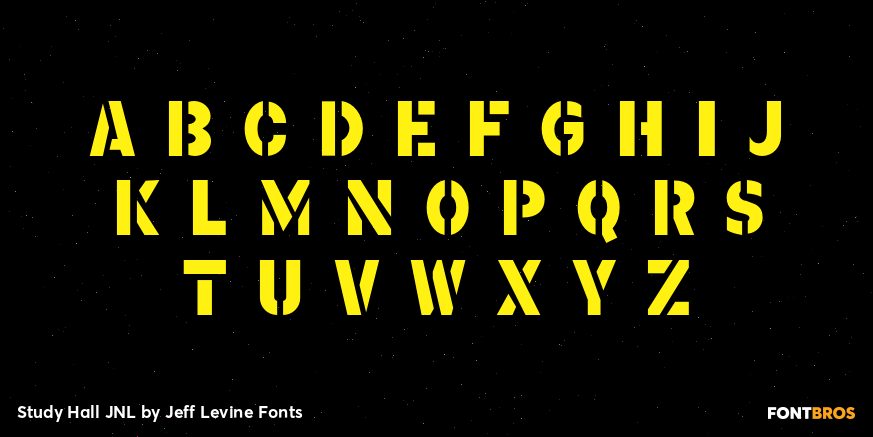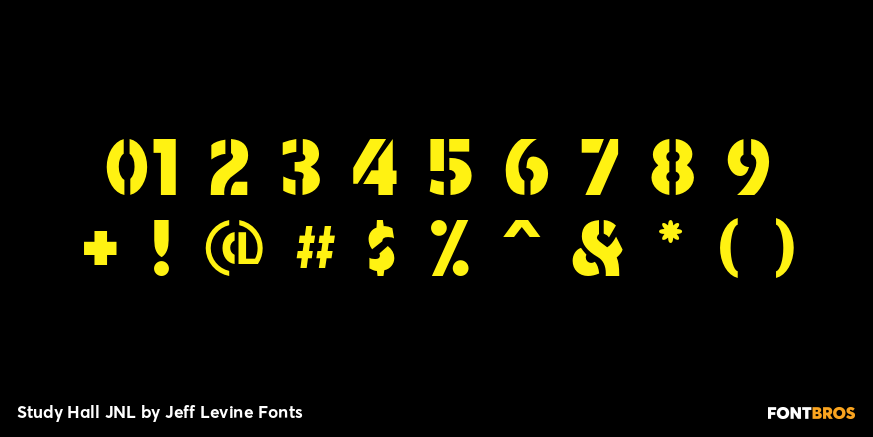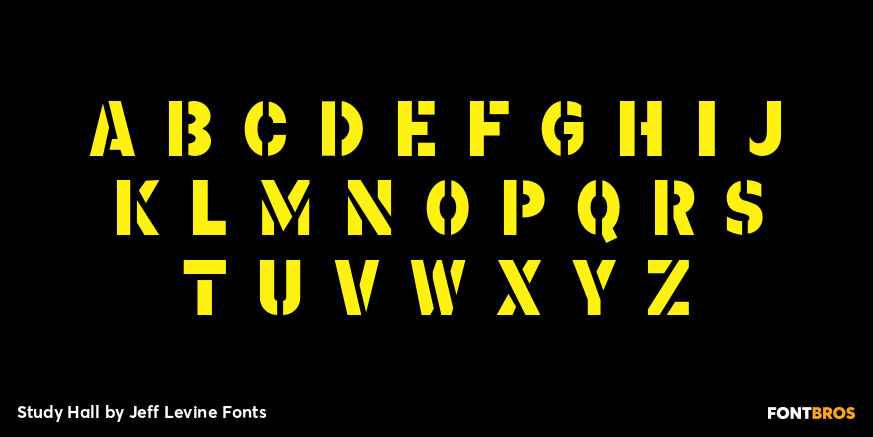
Study Hall JNL
Study Hall JNL is based on a paper stencil that was part of a 1950s drawing and lettering set for children.
Study Hall JNL Regular by Jeff Levine Fonts